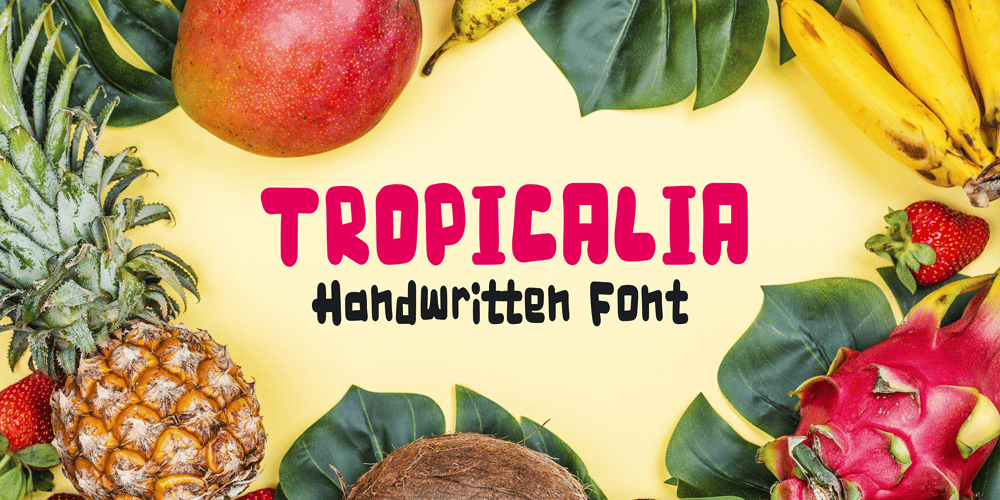
Tropicalia Type Font Family was designed by Danni Wiebelhaus and published by danni.creative. Tropicalia Type contains 1 styles and family package options. Thx for checking out Tropicalia Type! This hand written display font gives a tropical feeling to any project. Perfect for logos, product packaging, posters, cards, printed quotes, t-shirt design and whatever your imagination holds. Tropicalia Type comes with a complete set of uppercase and lowercase alternates, which can easily be accessed through the glyphs panel. Enjoy!